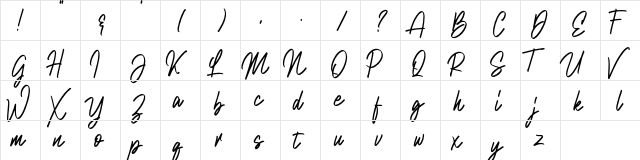
Natalia Rosaline Demo Regular
| Foundry | Runsell Studio |
| Designer | Edi Gunawan |
Design Context for Natalia Rosaline Demo Typeface
Natalia Rosaline Demo is a composed and adaptable typeface that performs quietly and consistently across a wide range of design contexts.